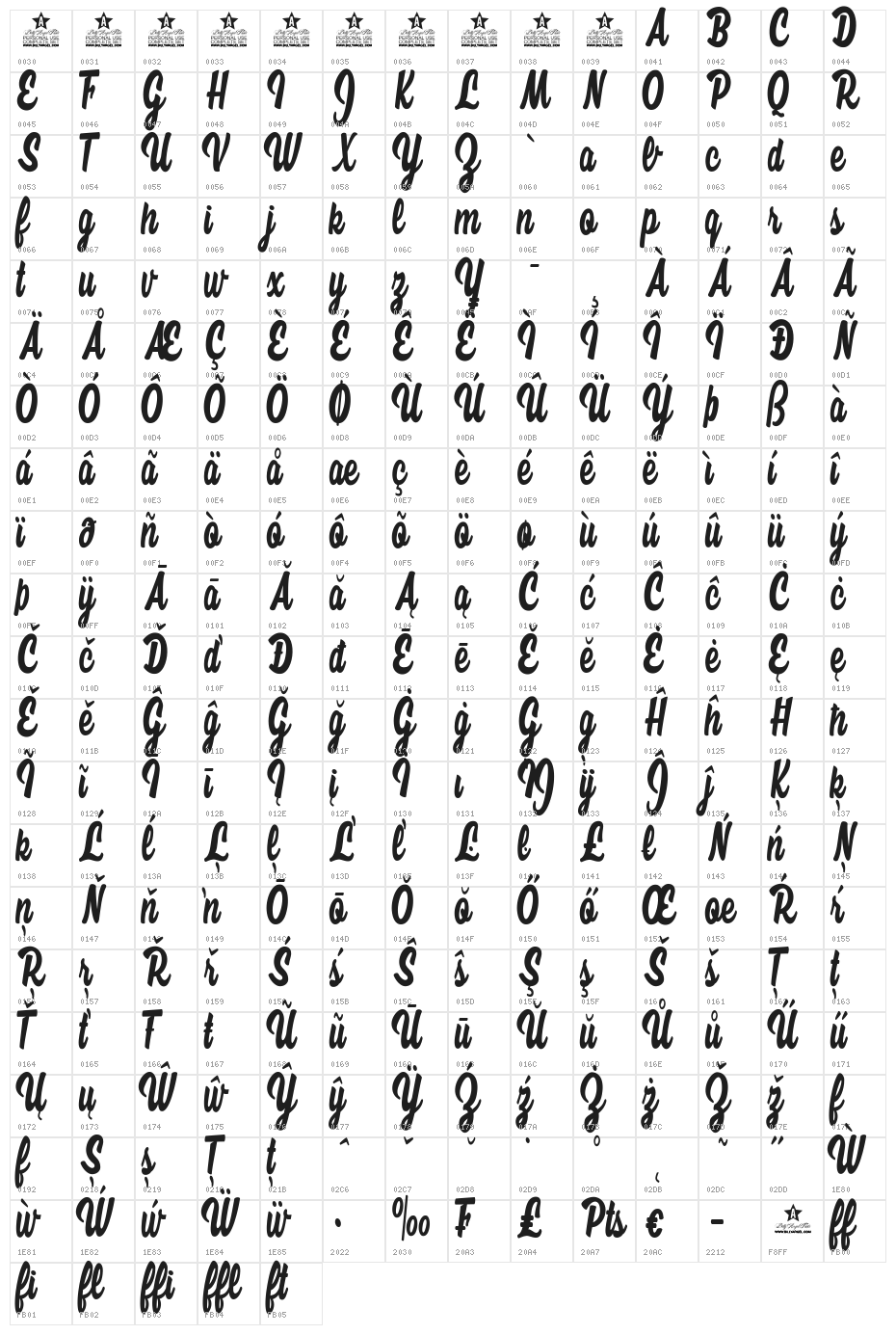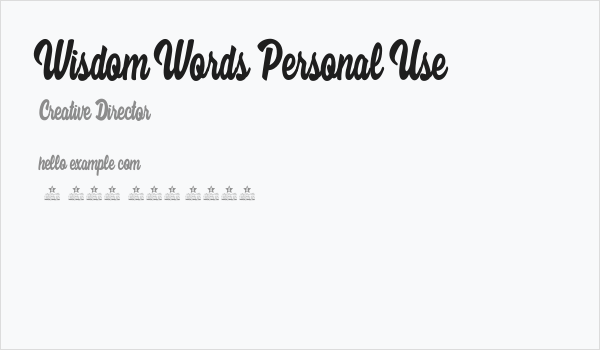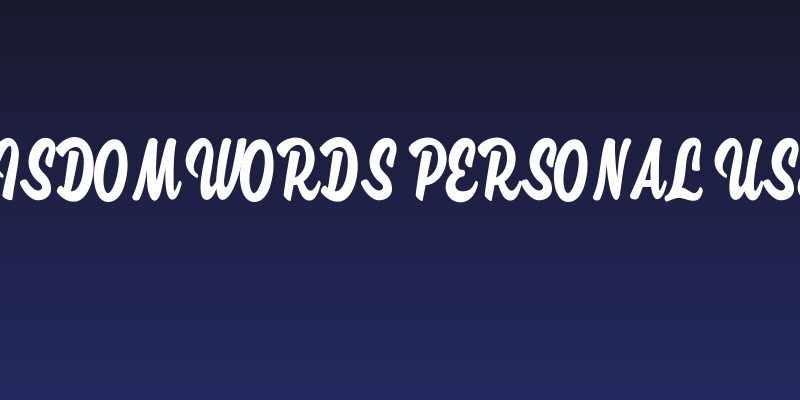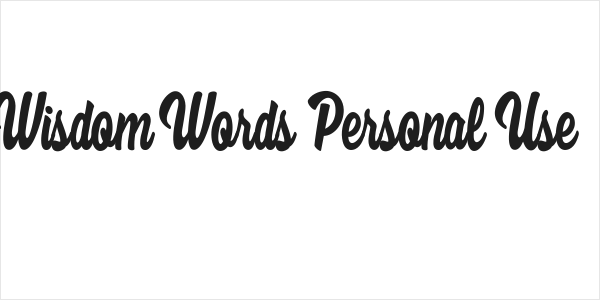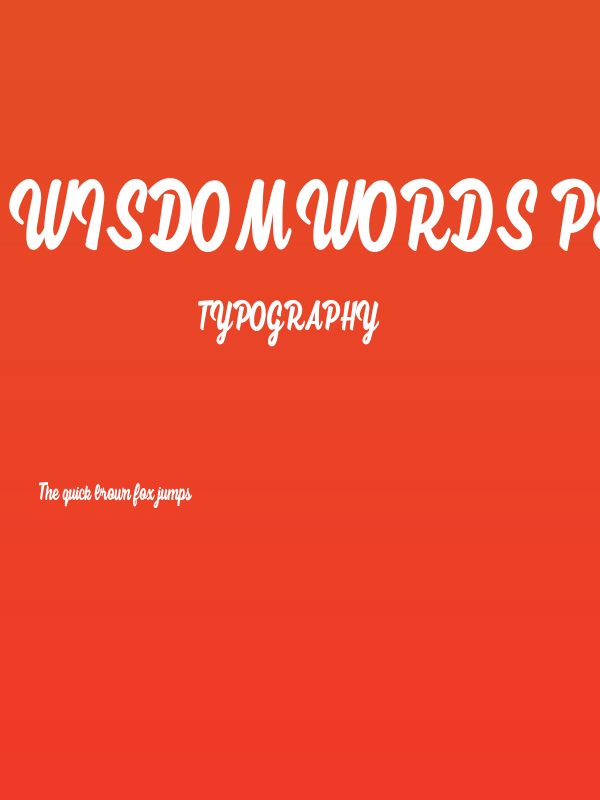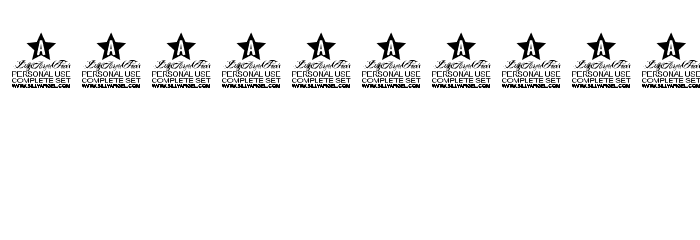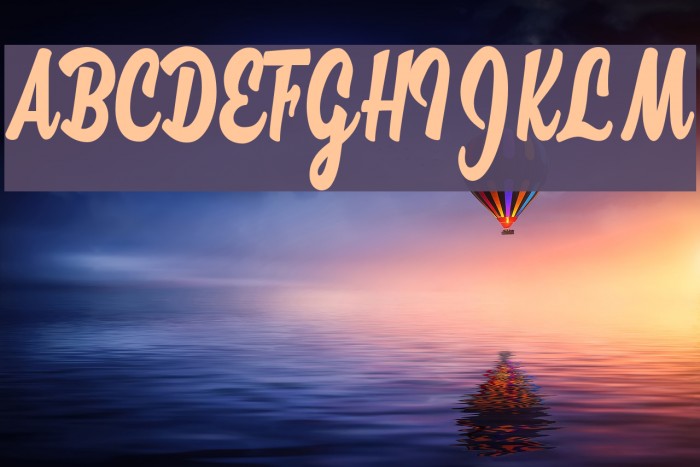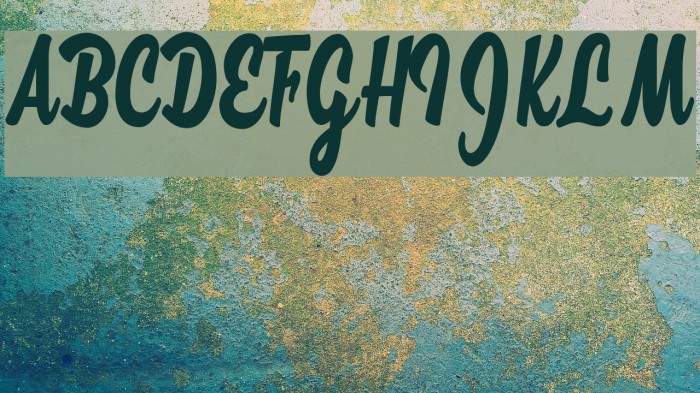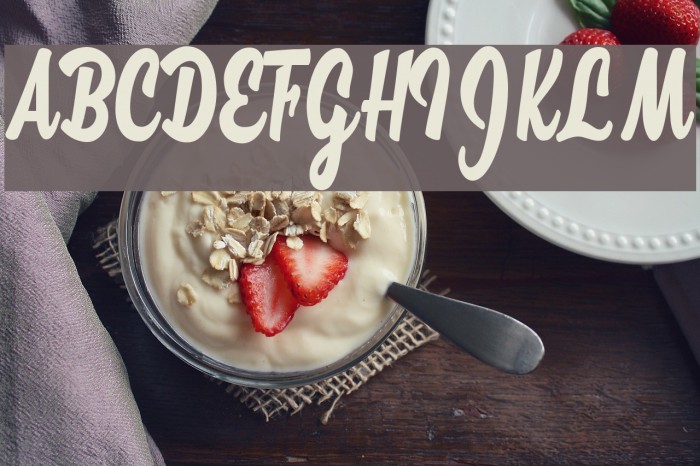
Wisdom Words Personal Use Font
Wisdom Words Personal Use Description
This font features a bold, cursive style with smooth, flowing lines that give it a dynamic and energetic appearance. The uppercase letters are tall and slightly slanted, adding a sense of movement and elegance. The lowercase letters maintain the same fluidity, with some characters featuring distinctive loops and swashes that enhance its decorative appeal. The numbers and special characters are consistent with the overall style, ensuring a cohesive look across all text. This font is ideal for creating eye-catching designs that require a touch of sophistication and flair.